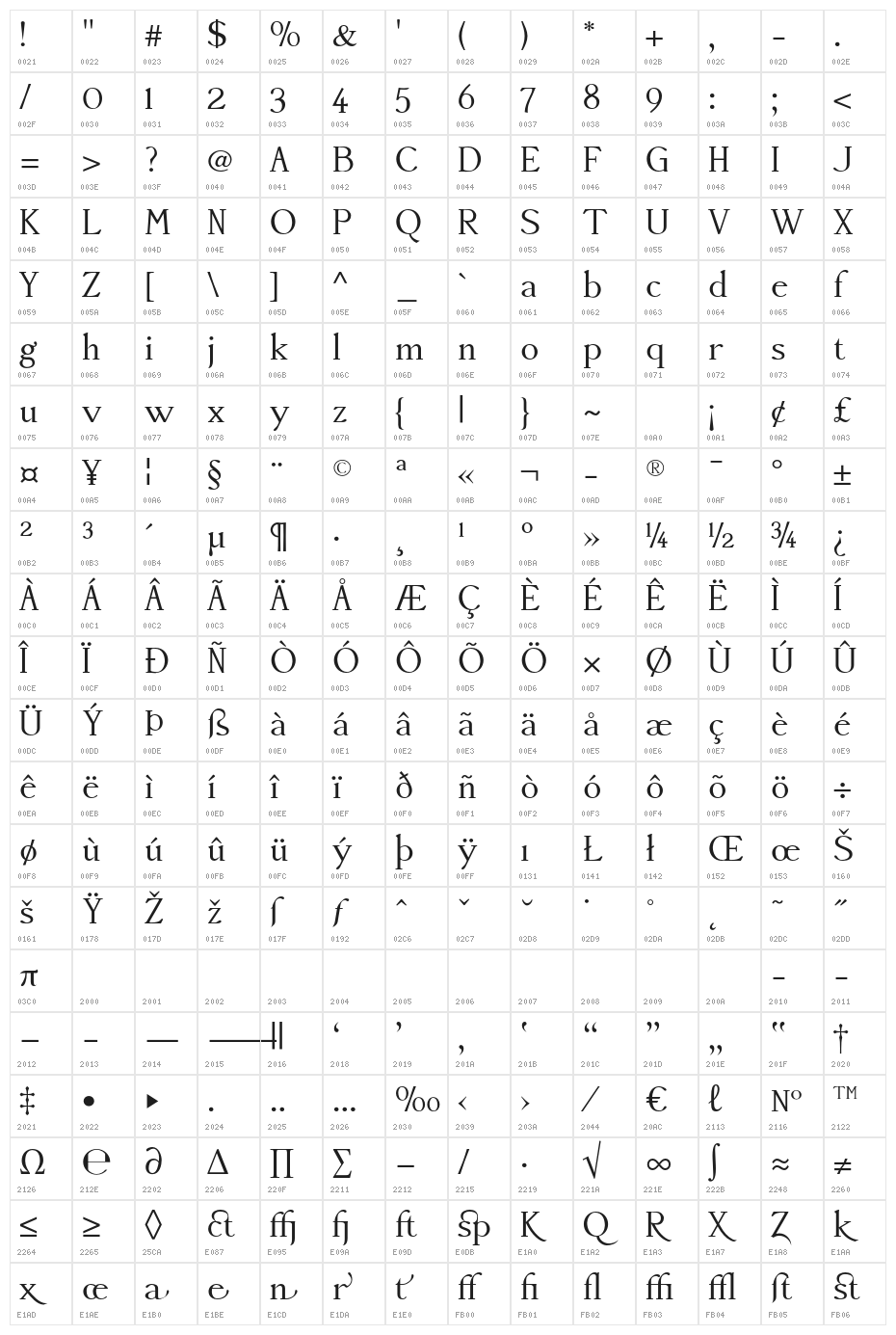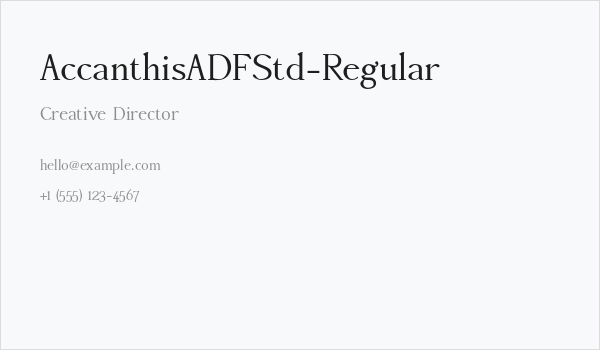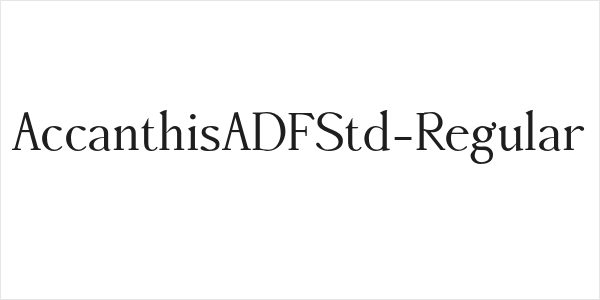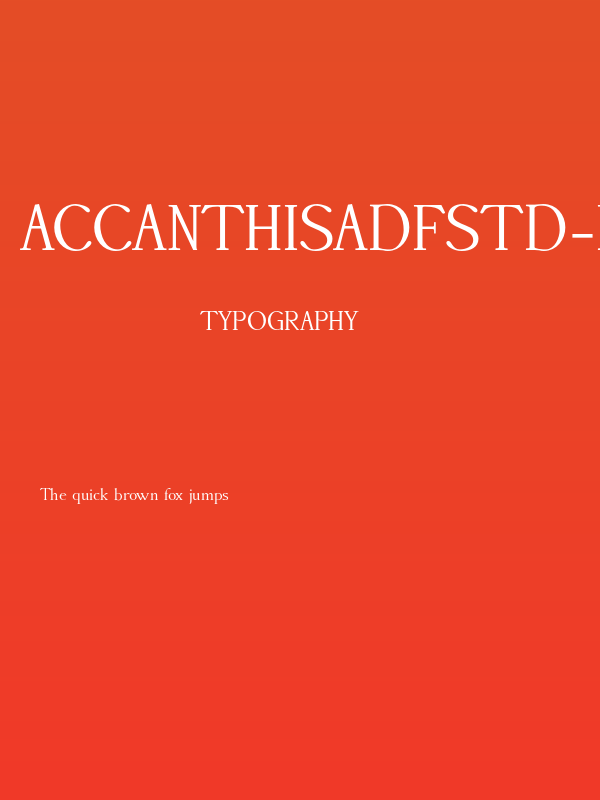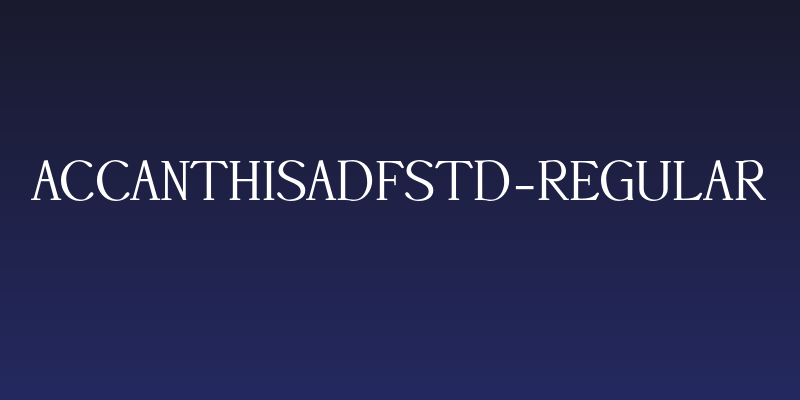
AccanthisADFStd-Regular Font
AccanthisADFStd-Regular Description
This font features a classic serif style with elegant and refined strokes. The characters exhibit a balanced proportion, with slightly elongated serifs that add a touch of sophistication. The uppercase letters are well-defined and maintain a consistent height, while the lowercase letters have a gentle curve, enhancing readability. The numerals are clear and distinct, making them suitable for both text and display purposes. The special characters are crafted with precision, maintaining the overall aesthetic of the font. This typeface is versatile, suitable for a variety of applications where a traditional yet stylish look is desired.
| Proposed Projects | Ideal for editorial design, book covers, formal invitations, and branding projects requiring a touch of elegance. |